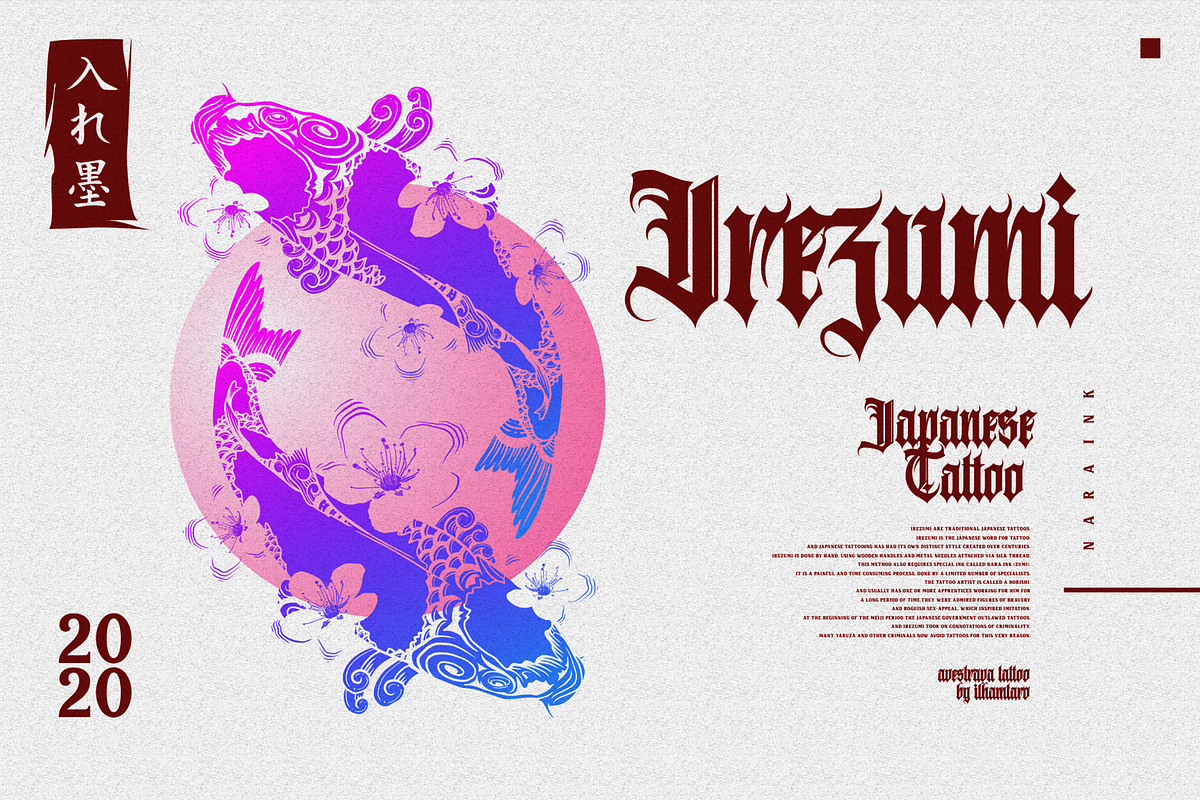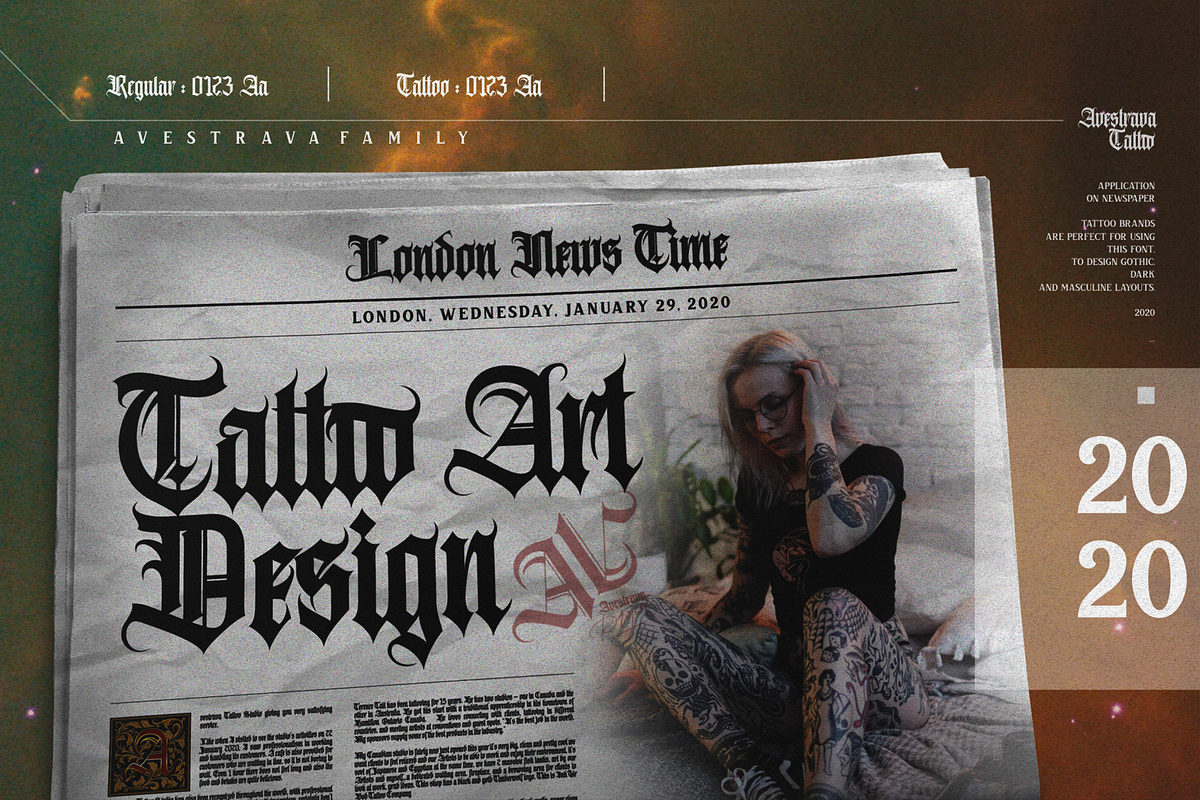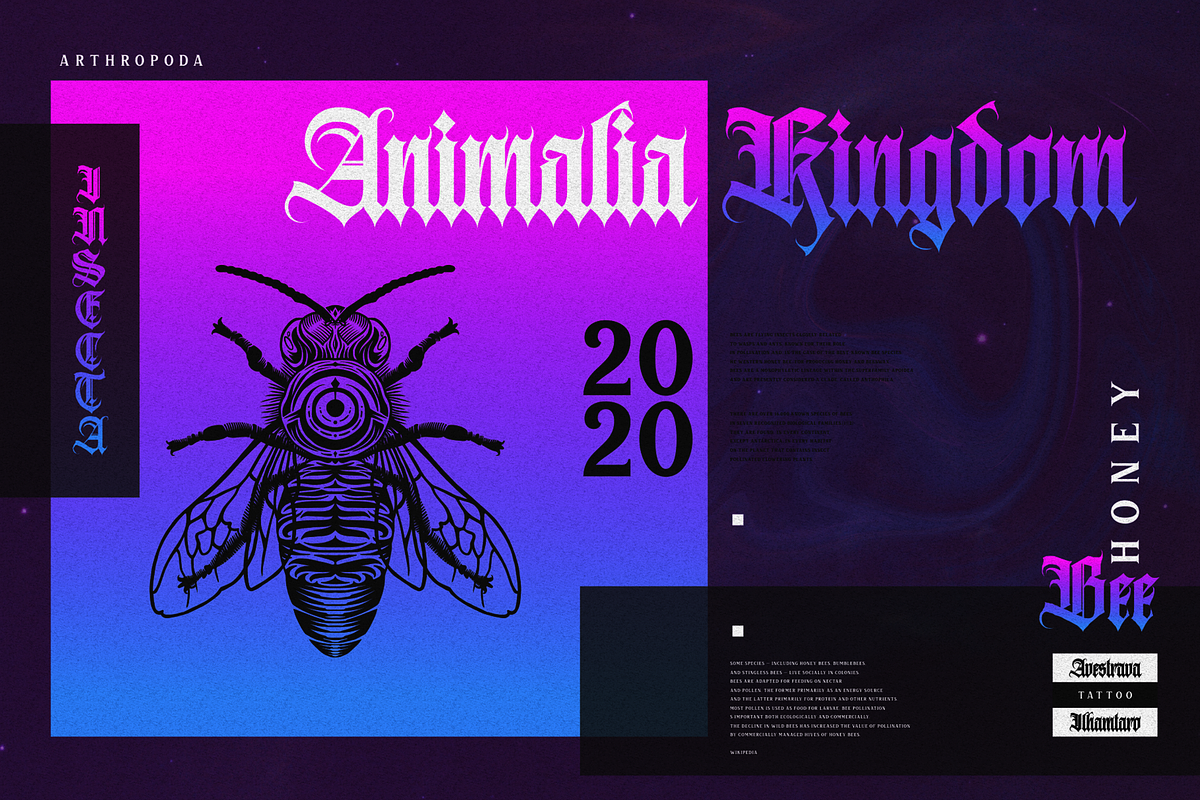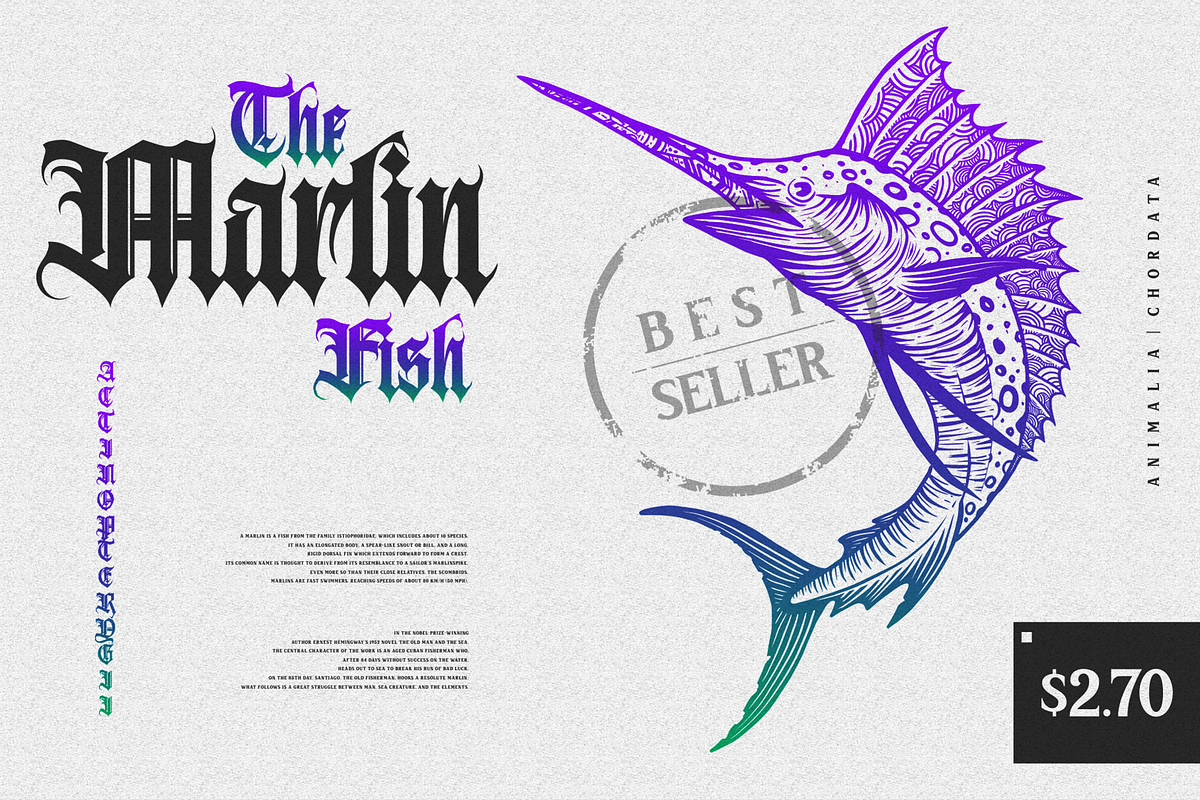
Avestrava Tattoo Blackletter
AVESTRAVA TATTOO
is a family of letters from Avestrava. This time the tattoo style is more gothic than Avestrava Regular which tends to be formal. Of course it will be very suitable for your tattoo studio business, such as for making a logo or tattoo design. In addition to supporting the design of your tattoo studio promotions such as business card designs, posters, flyers, brochures, t-shirts, stickers, even very good if applied to your social media such as the design of Instagram stories, Instagram posts, your website etc.
Besides this font is able to convey the nature of the vintage blackletter into a modern layout design. https://creativemarket.com/ilhamtaro/4430282-Avestrava-Regular